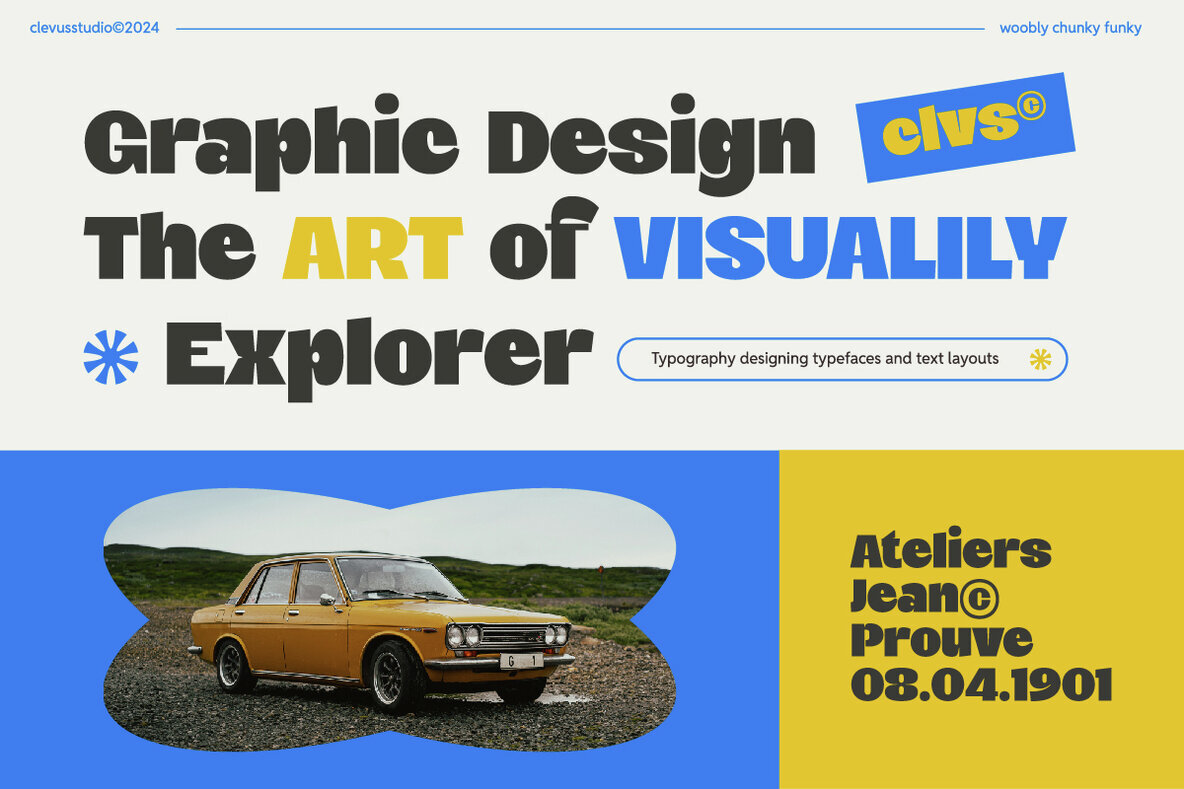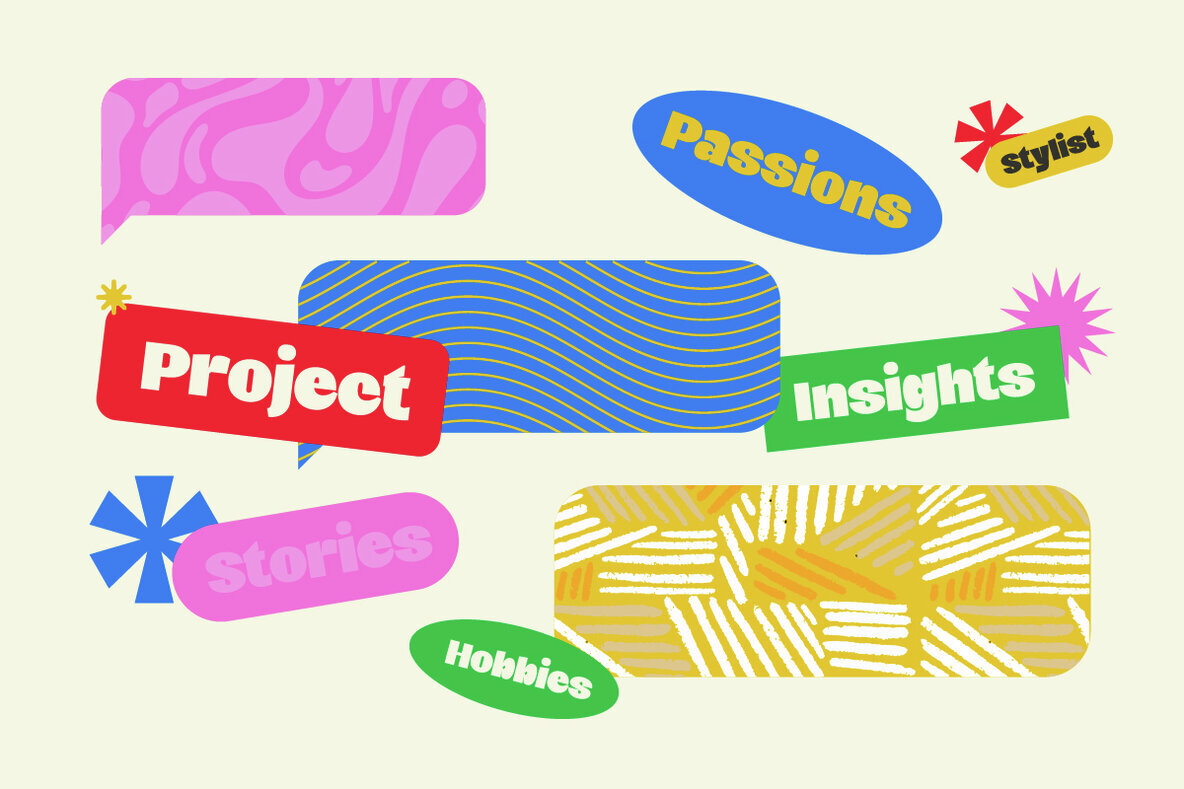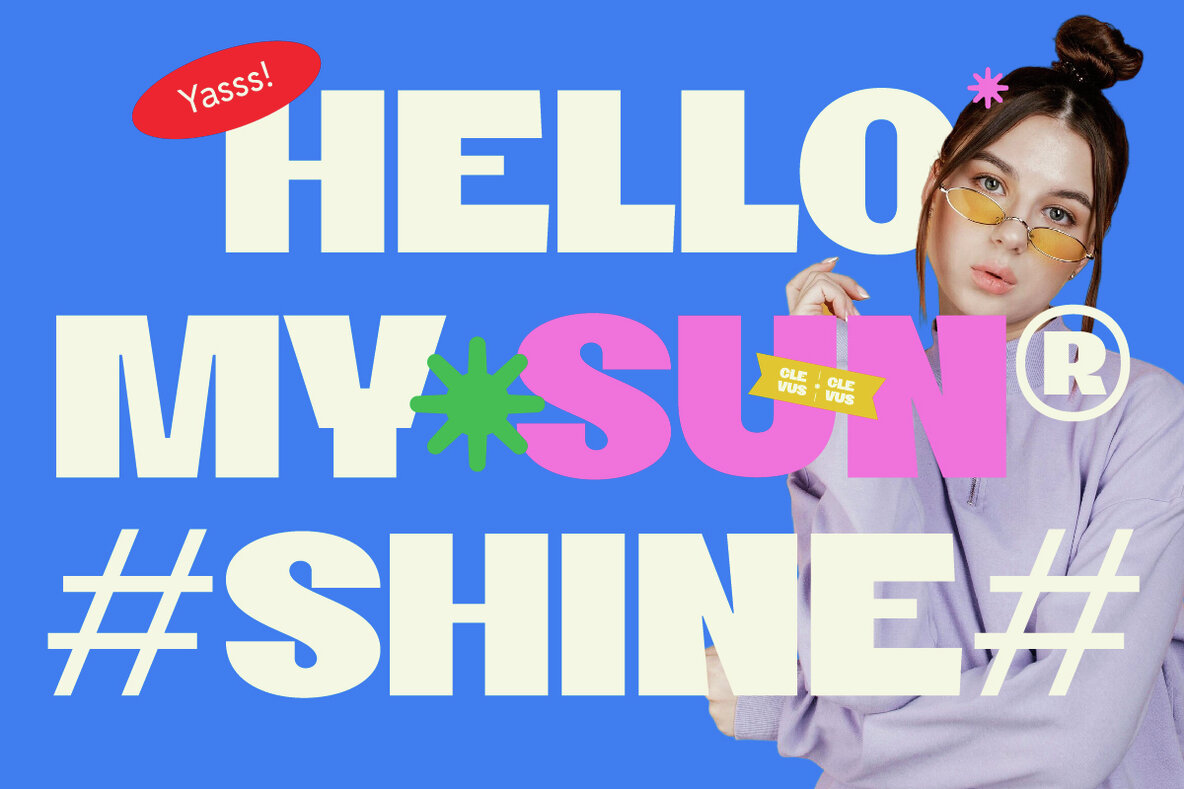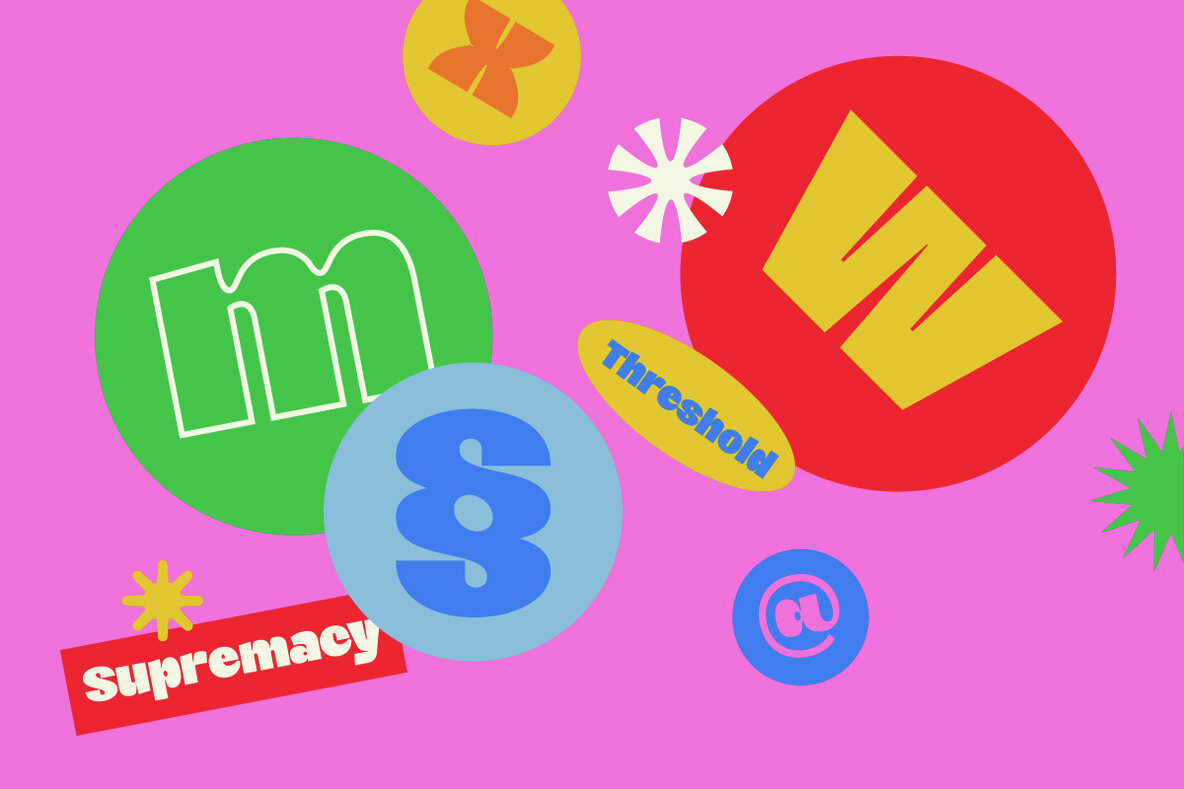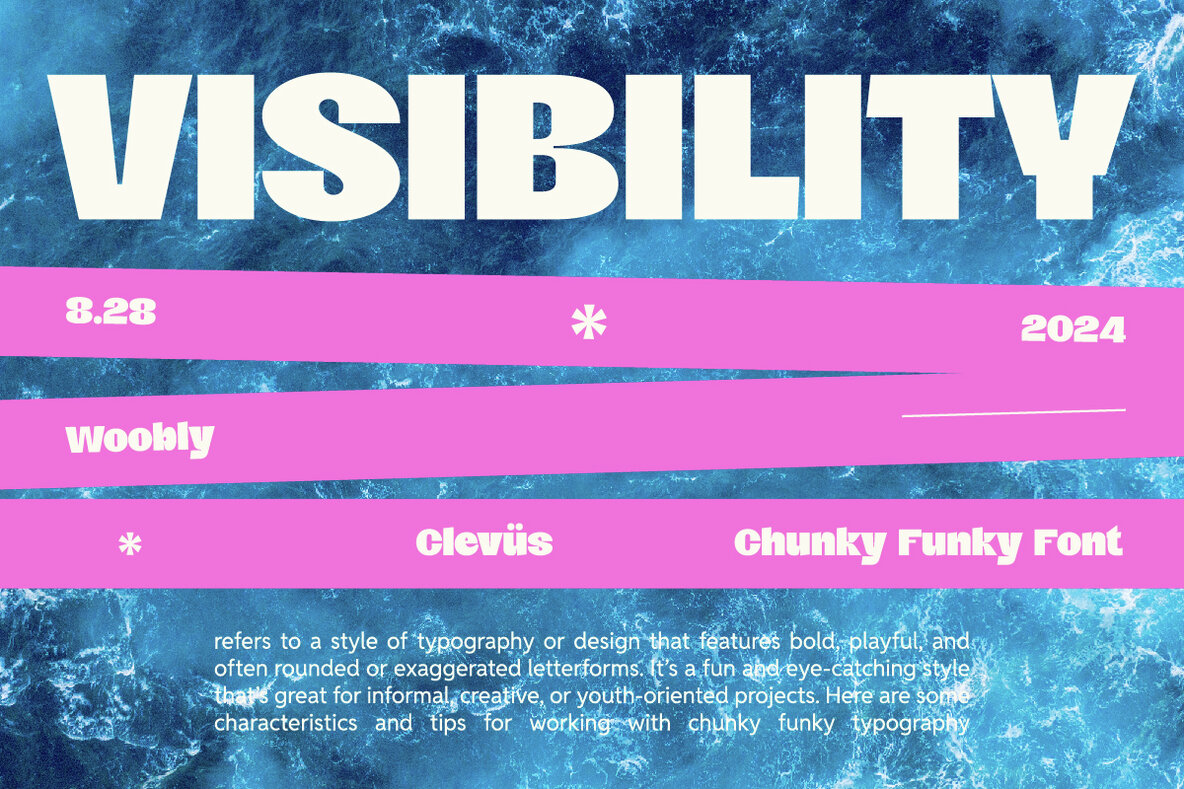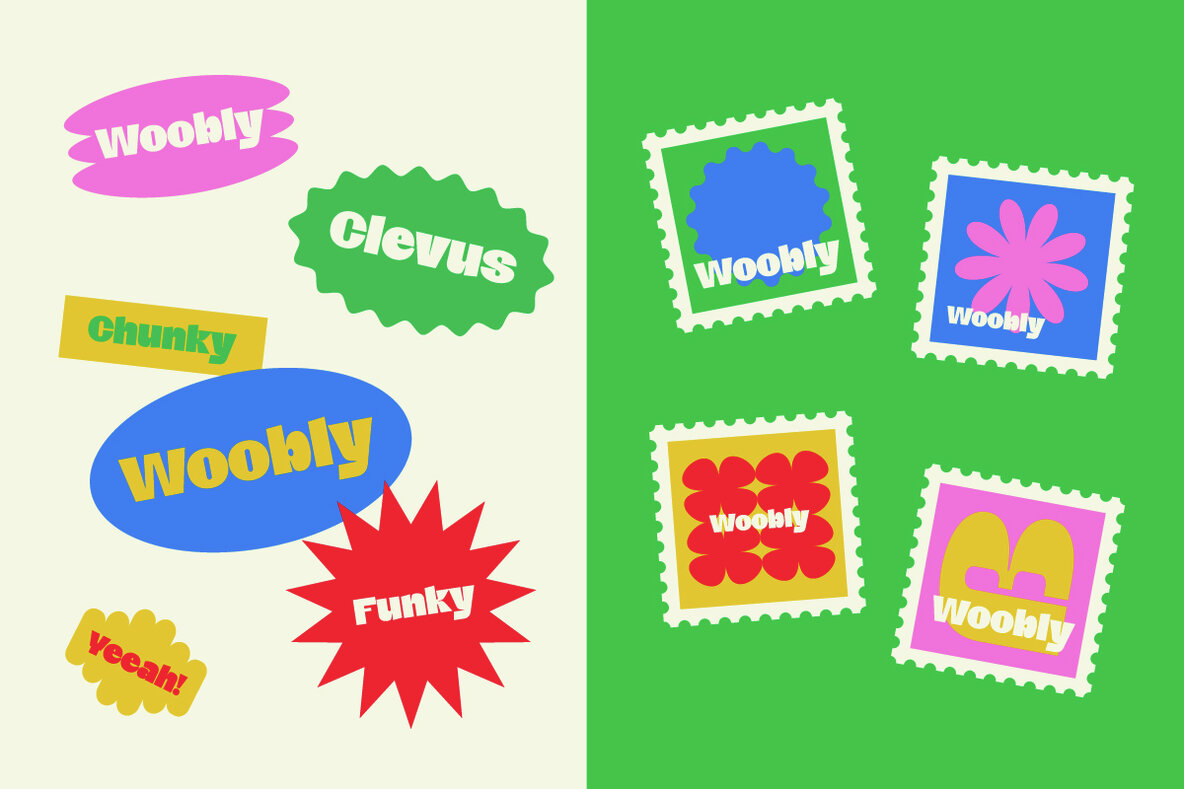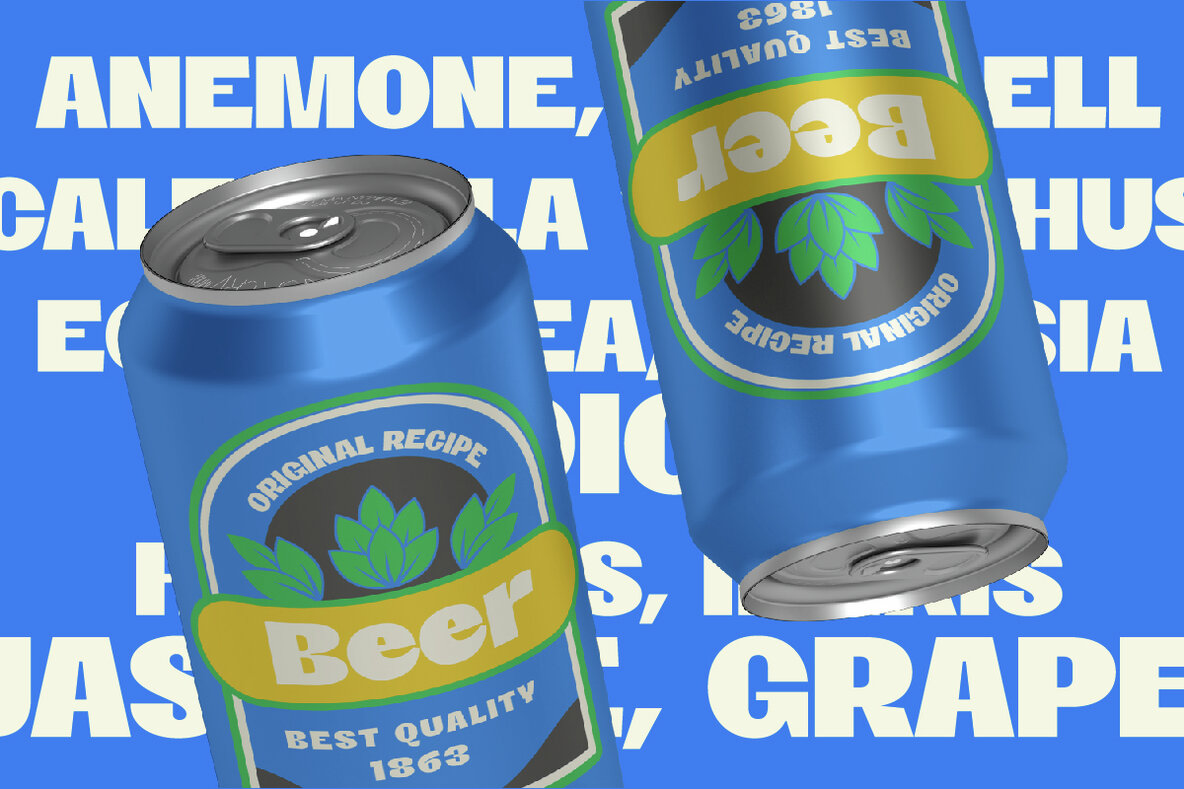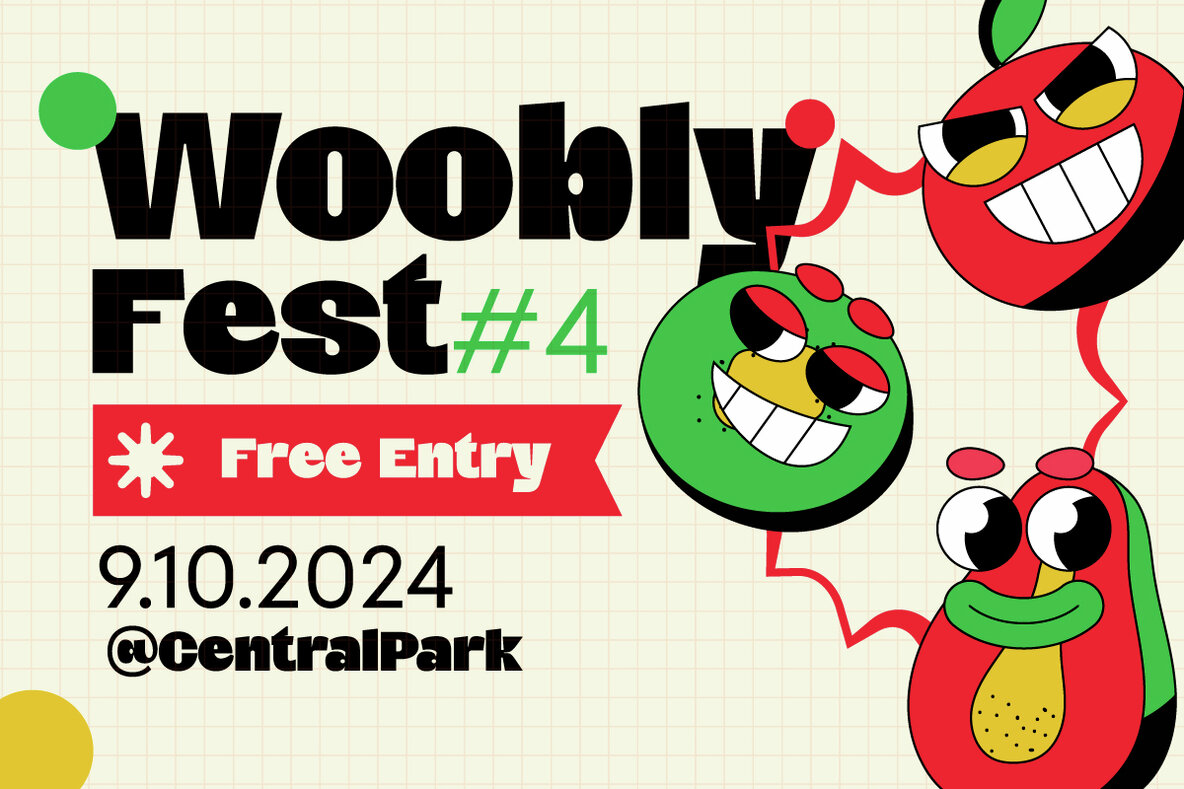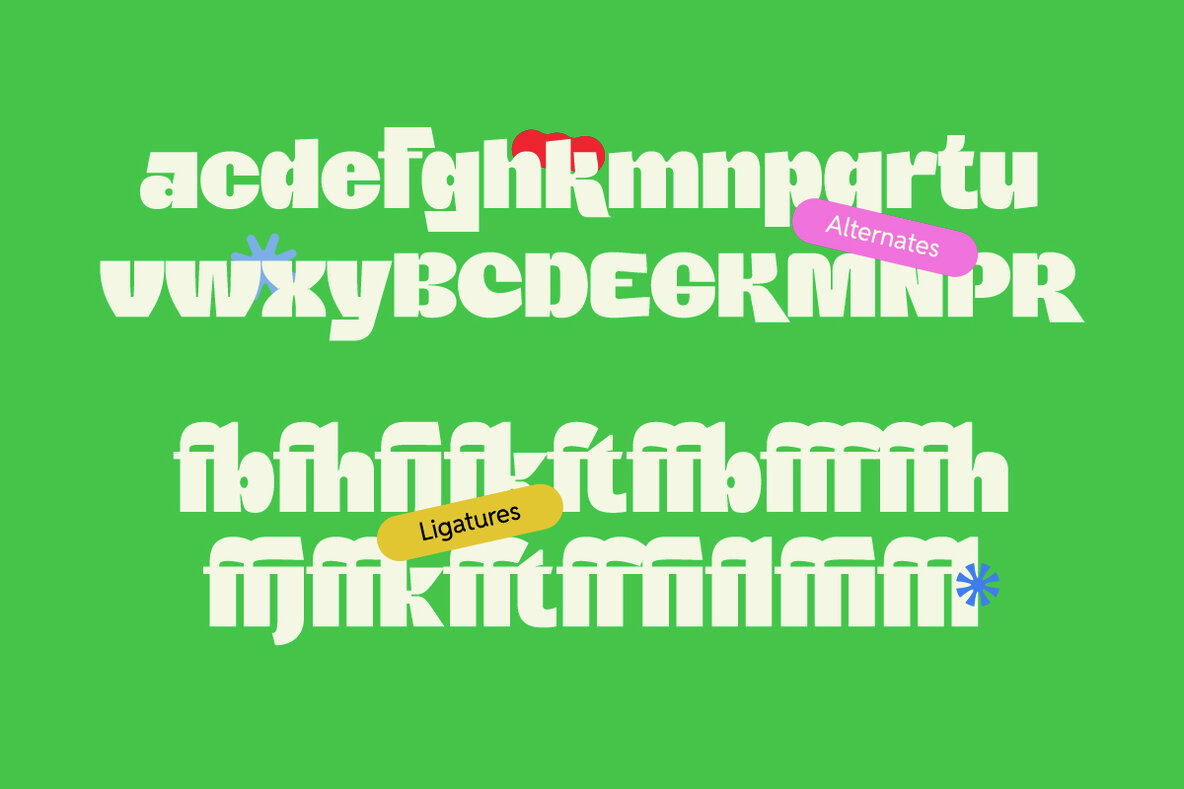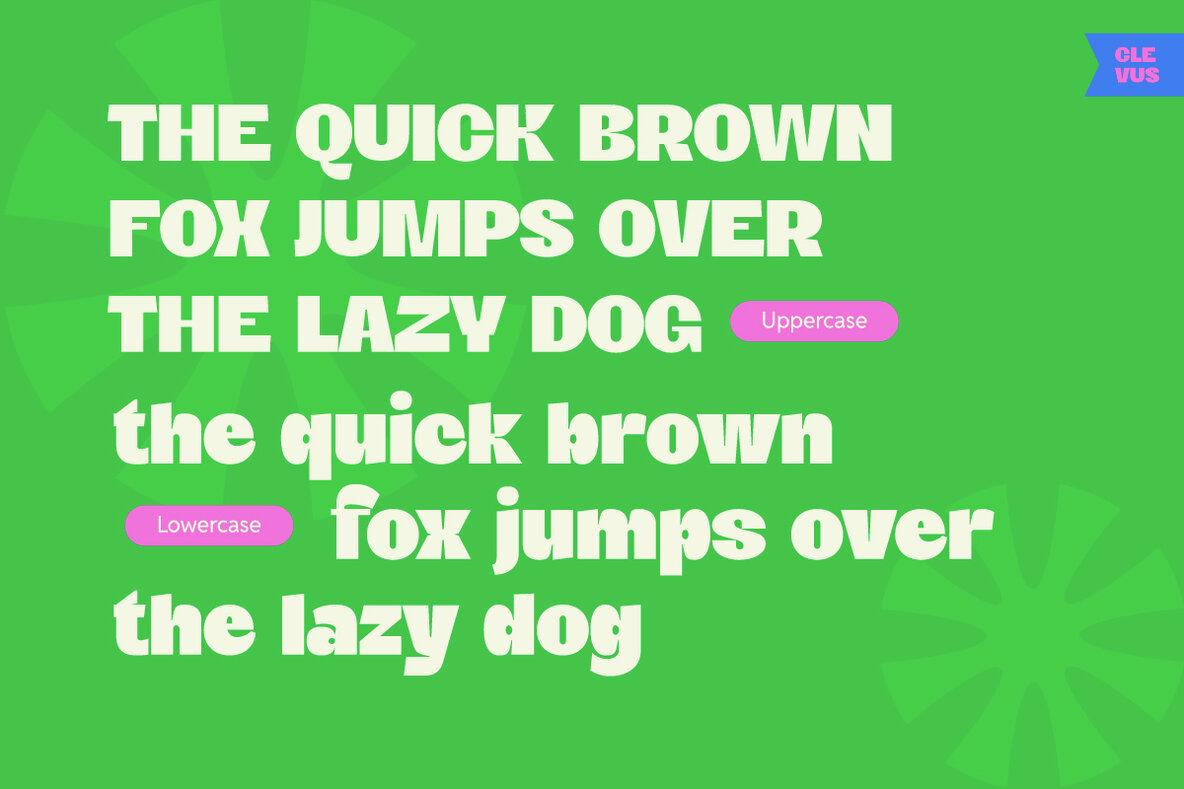
Woobly Font
Woobly Regular
Woobly Chunky Funky sans serif typeface is a playful and bold font with a distinctive charm. With its soft corners and chunky design, Woobly brings a cute and friendly vibe to your projects without being overwhelming. This typeface is perfect for adding a touch of personality to your work, making it stand out while feeling approachable and warm.
Whether you’re working on a fun poster, a whimsical logo, or any creative endeavor that needs a unique look, Woobly provides the ideal blend of boldness and whimsy. Let your designs shine with Woobly, and create work that feels both endearing and eye-catching.